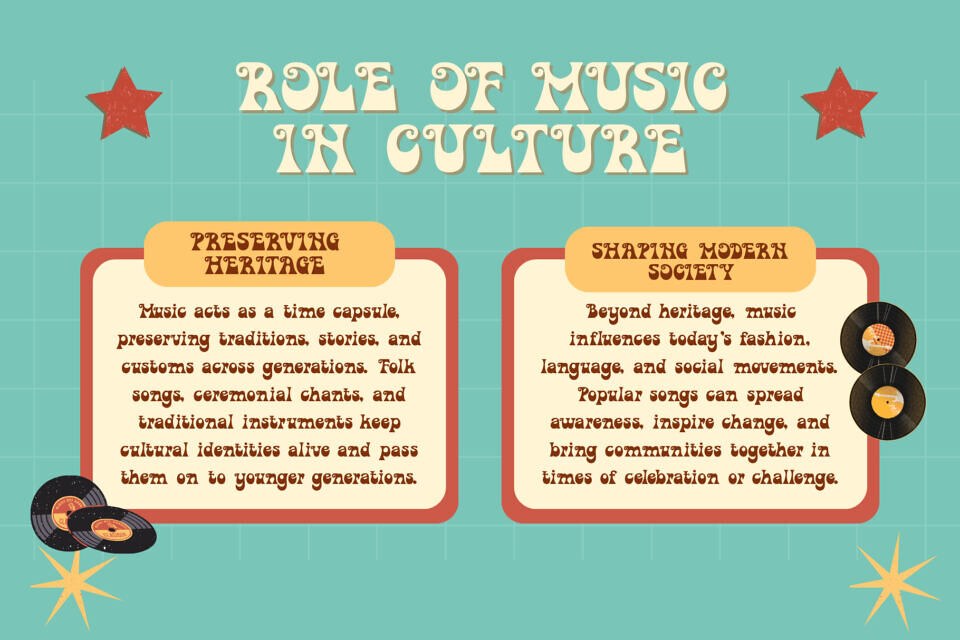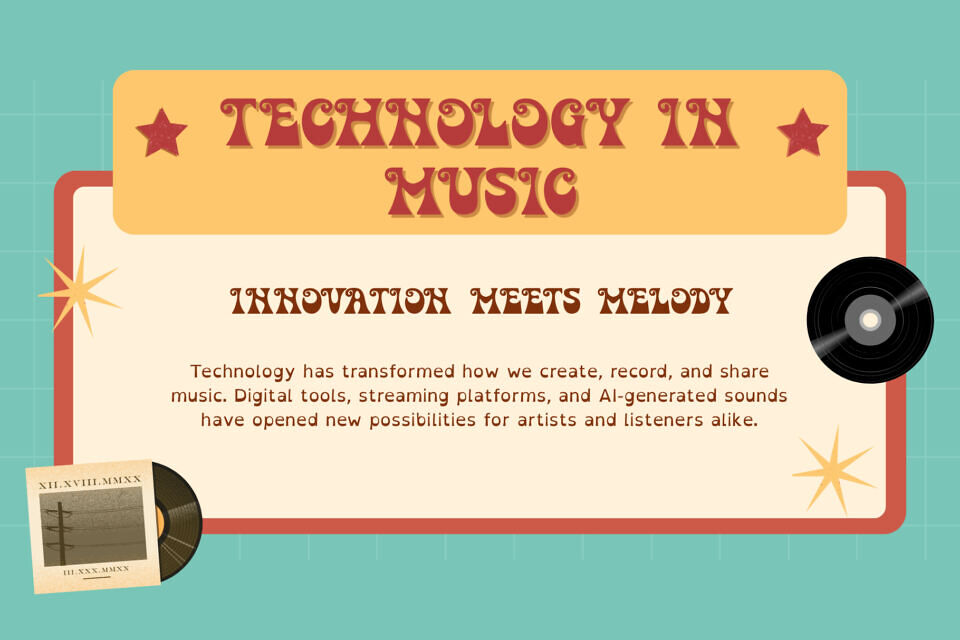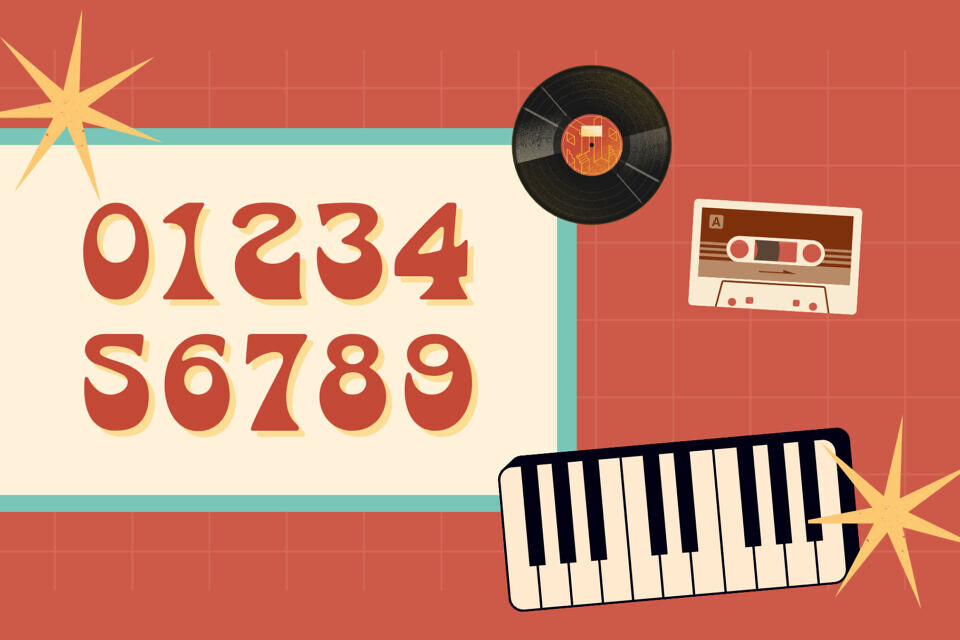
Opal Groove is a retro-funk display typeface full of character and imagination. Its letters are uniquely curved, quirky, and unexpected—bringing a groovy, fantasy, and slightly psychedelic vibe. This font is perfect for designs that aim to stand out, feel fun, and stay memorable.